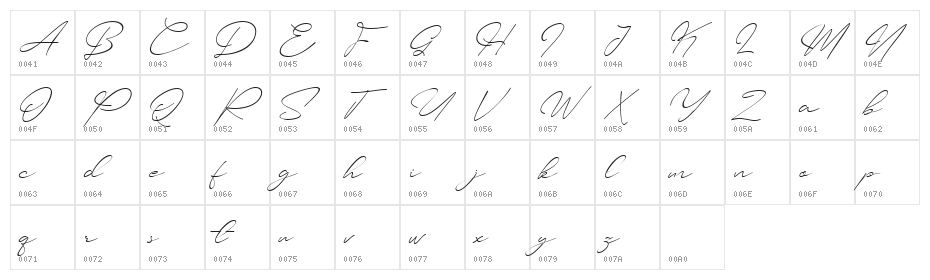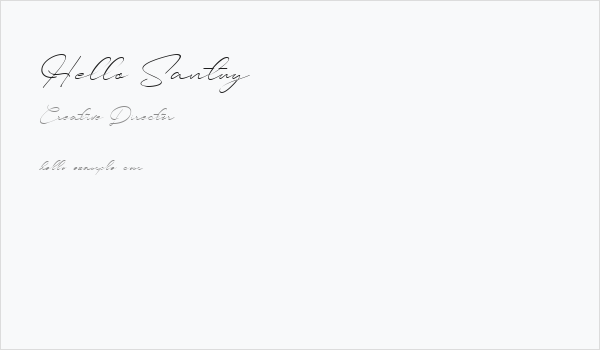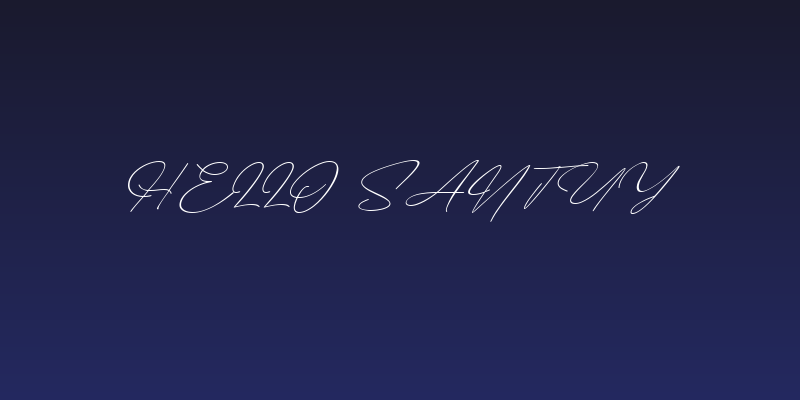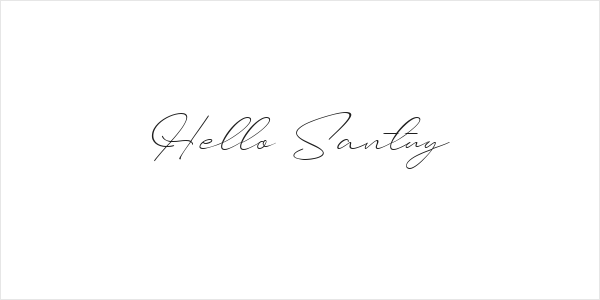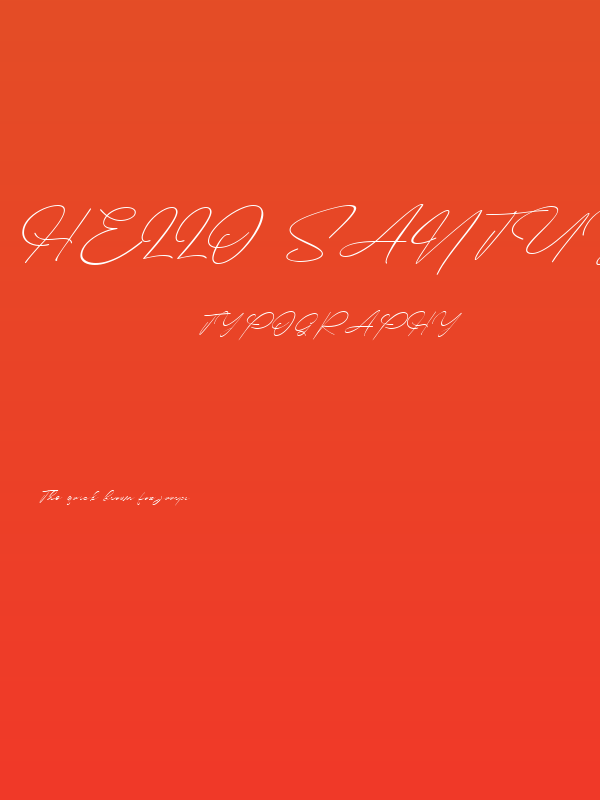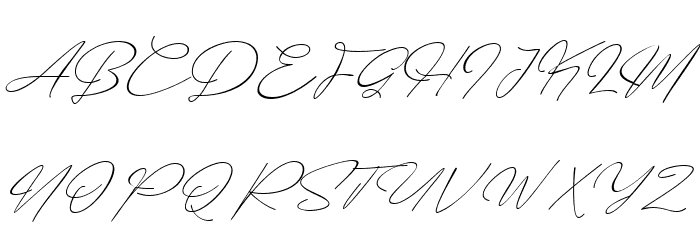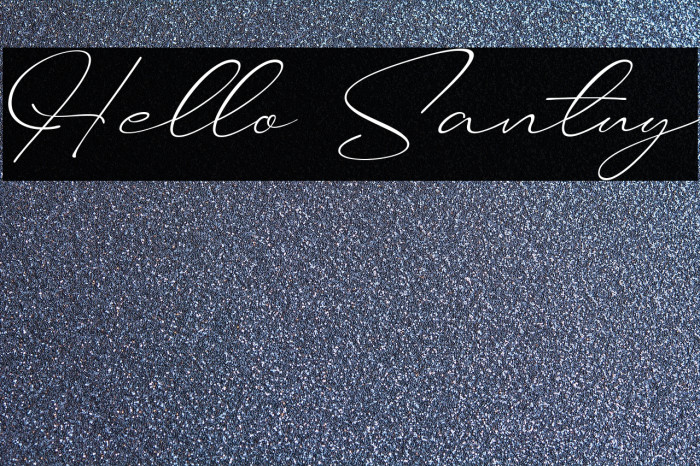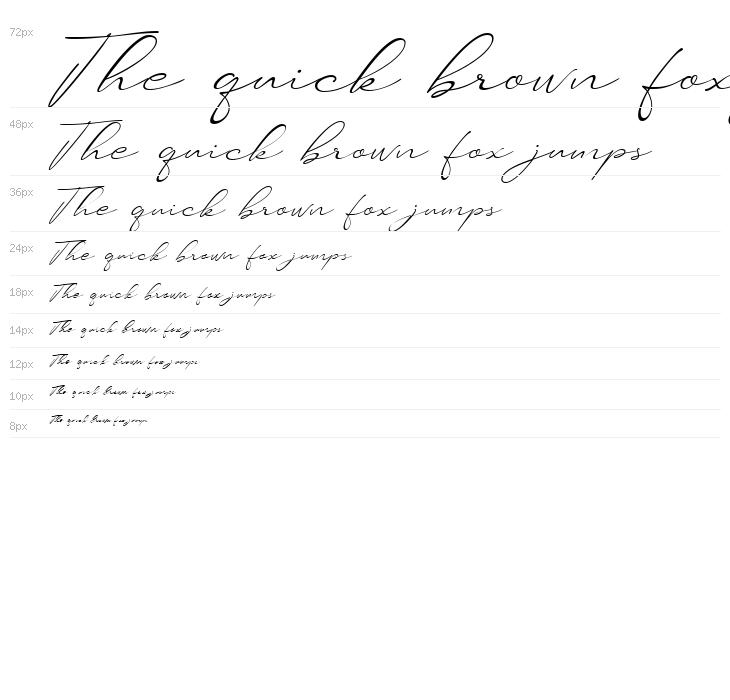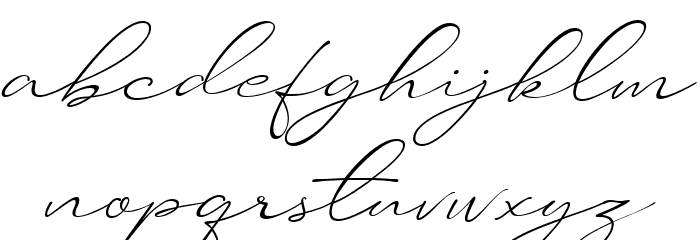
Hello Santuy Font
Hello Santuy Description
This elegant script font features a flowing, cursive style that mimics natural handwriting. The characters are connected with smooth, sweeping lines, giving it a graceful and sophisticated appearance. The uppercase letters are slightly more ornate, with flourishes that add a touch of flair, while the lowercase letters maintain a consistent, fluid motion. The font's thin strokes and delicate curves make it ideal for projects that require a personal, handwritten touch. It exudes a sense of elegance and refinement, making it suitable for formal invitations, branding, and other creative designs where a touch of class is desired.
| Use Case | Logos, Invitations, Artistic quotes |
| Proposed Projects | Ideal for wedding invitations, elegant branding, personal stationery, and artistic quotes. |